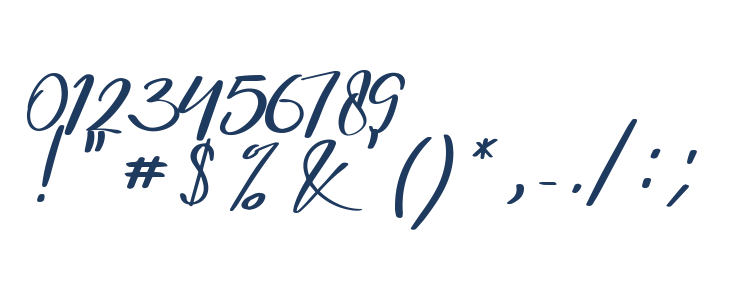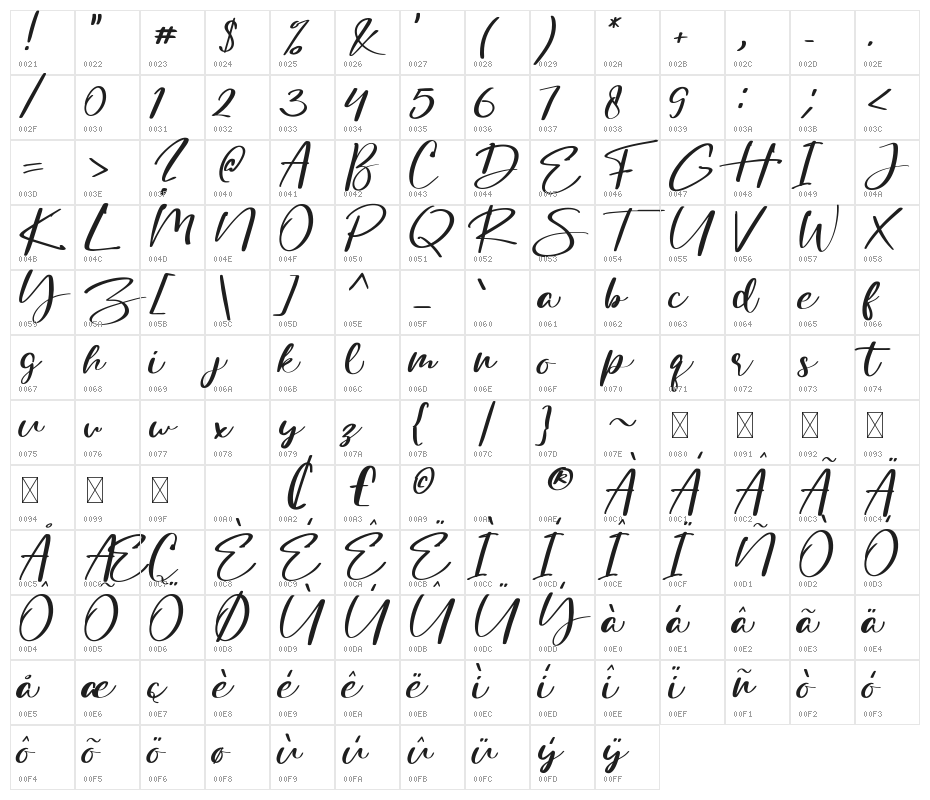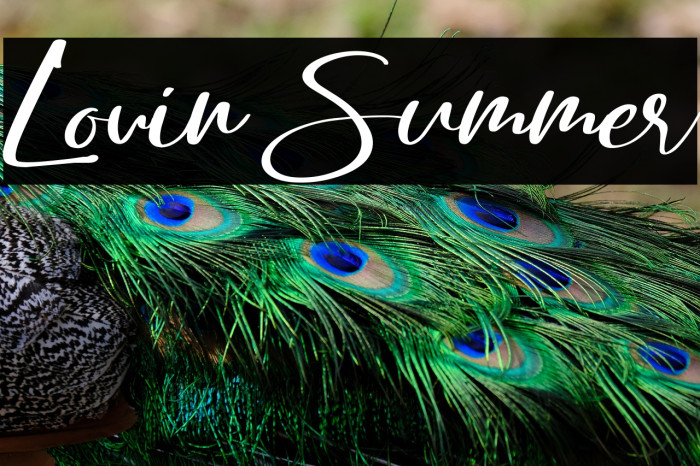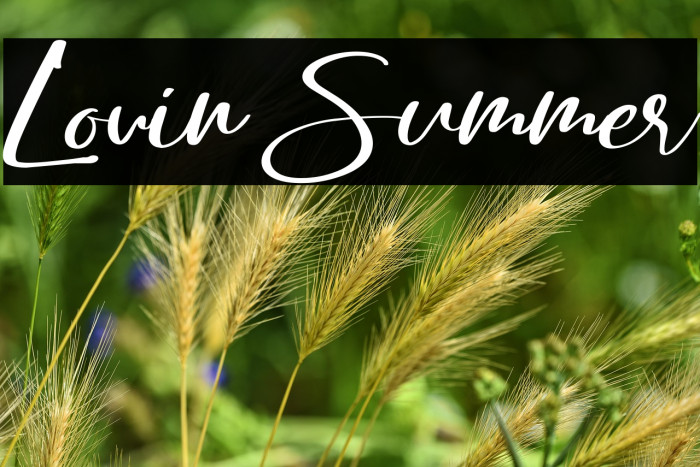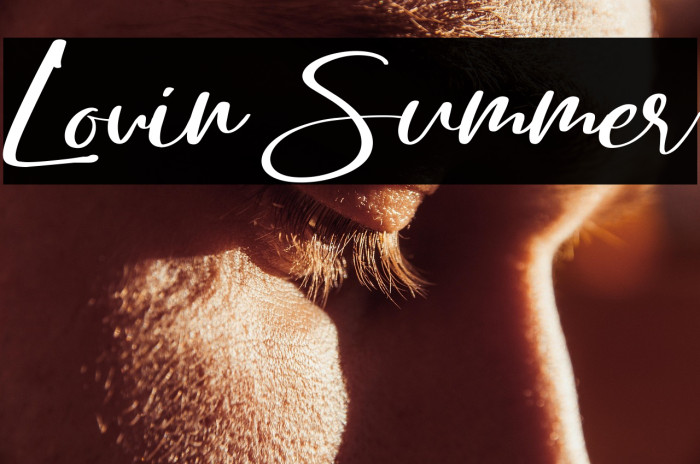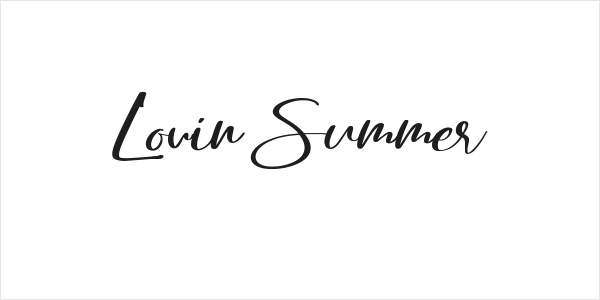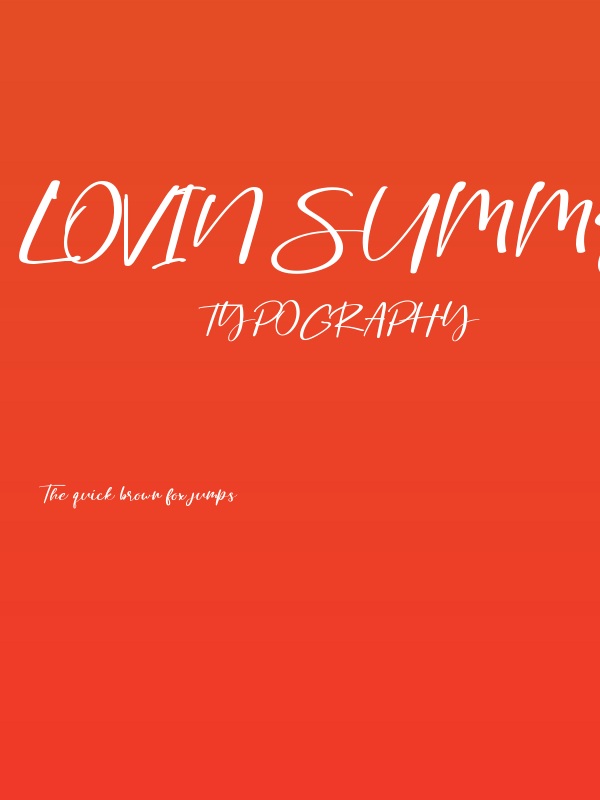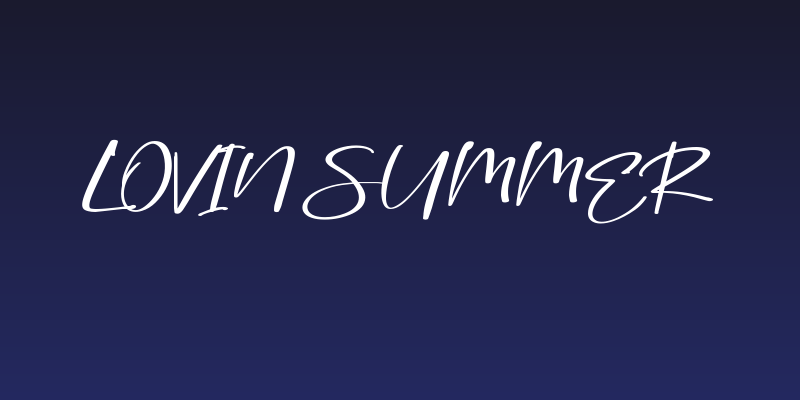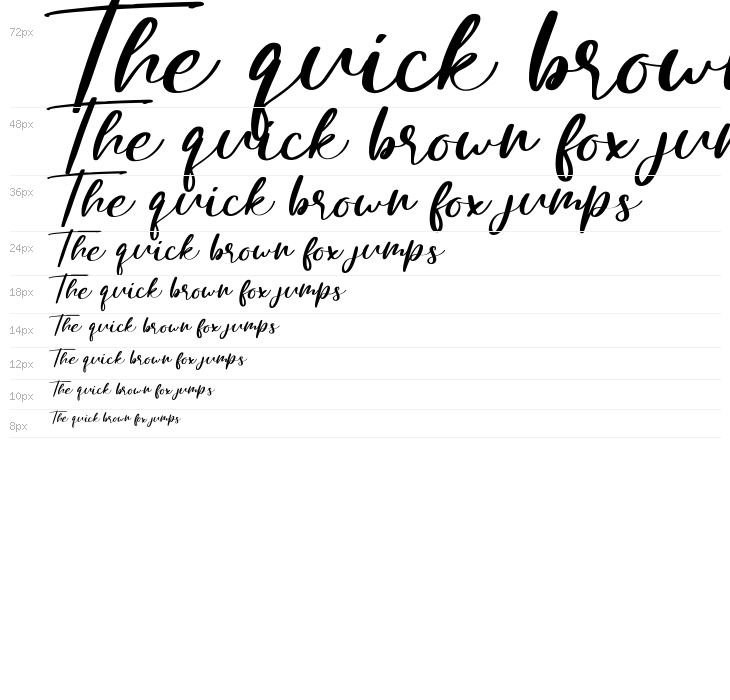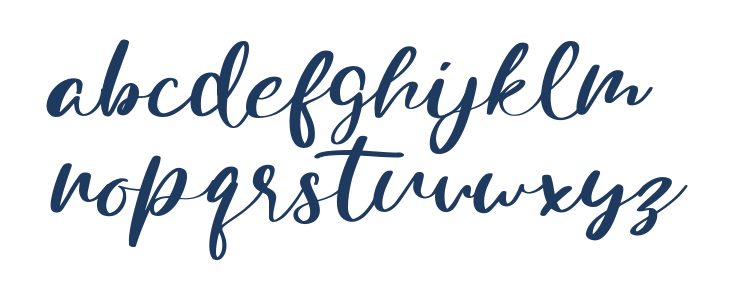
Lovin Summer Font
Lovin Summer Description
This font exudes a lively and energetic vibe, characterized by its flowing, cursive style. The uppercase letters are elegantly connected, while the lowercase letters maintain a smooth, continuous flow. The numerals are bold and dynamic, complementing the overall script style. The special characters are crafted with the same fluidity, ensuring consistency across all symbols. This font's playful yet sophisticated appearance makes it versatile for various design applications.
| Use Case | Logos, Invitations, Headlines |
| Proposed Projects | Ideal for wedding invitations, greeting cards, branding projects, and social media graphics. |